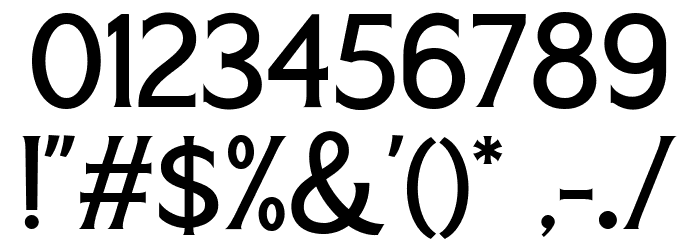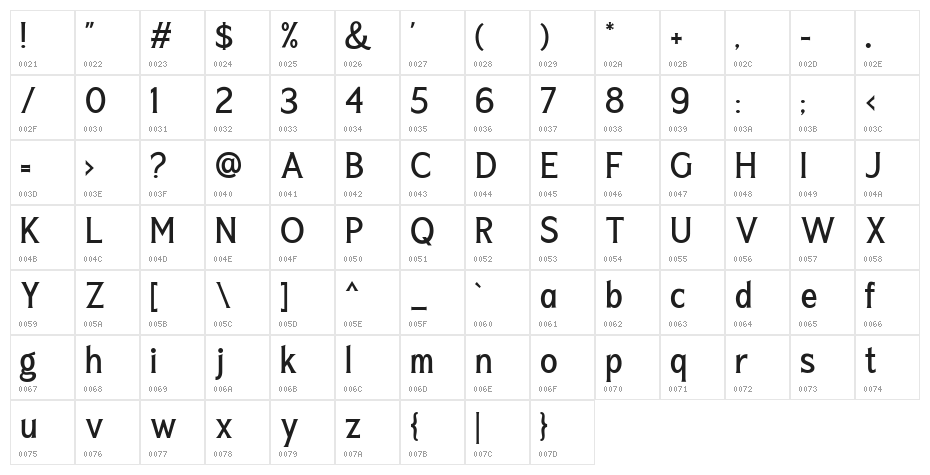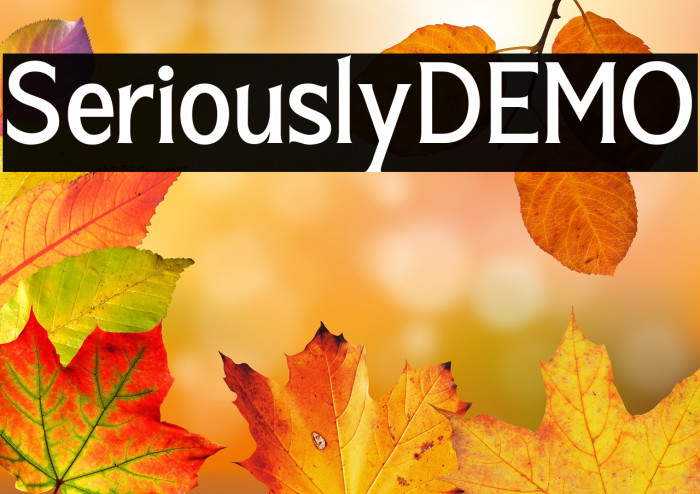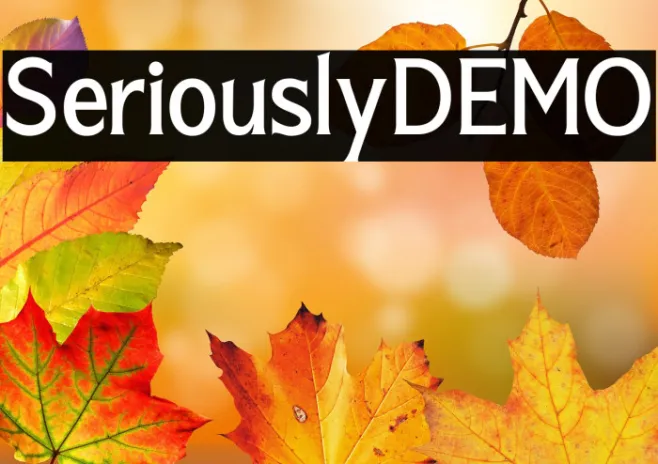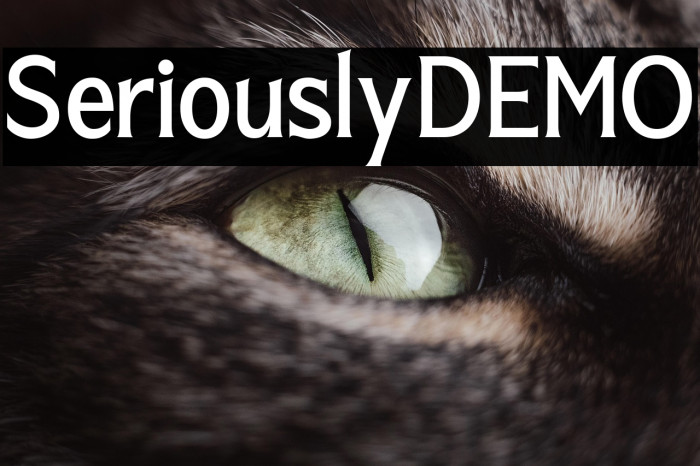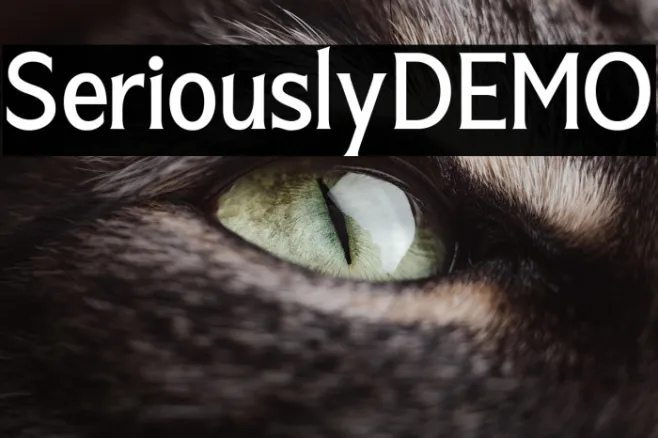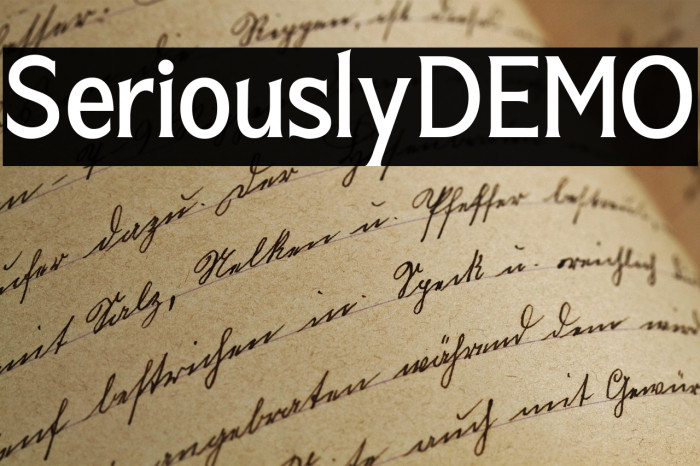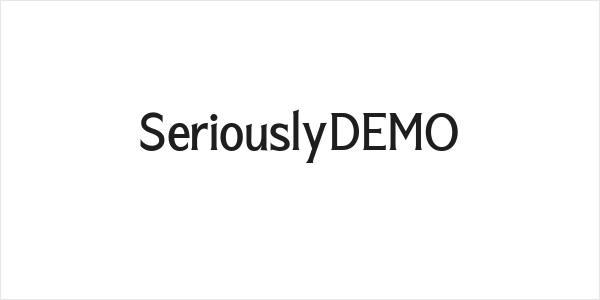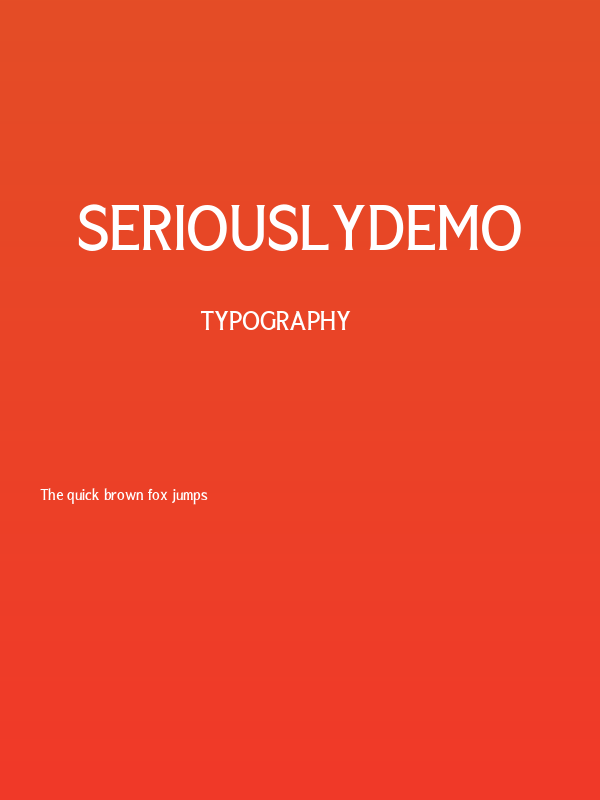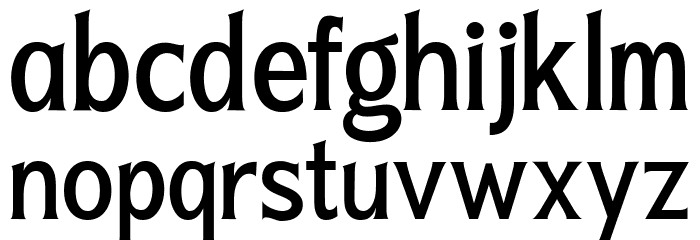
SeriouslyDEMO Font
SeriouslyDEMO Description
This font features a classic serif style with a modern twist, characterized by its clean lines and balanced proportions. The uppercase letters are bold and commanding, while the lowercase letters maintain a harmonious flow. The numerals are clear and distinct, making them easily readable. Special characters are designed with precision, adding to the font's versatility. The overall design is elegant yet functional, suitable for a variety of applications. The contrast between thick and thin strokes is moderate, enhancing readability without sacrificing style.
| Proposed Projects | Ideal for editorial design, book covers, branding, and formal invitations. |